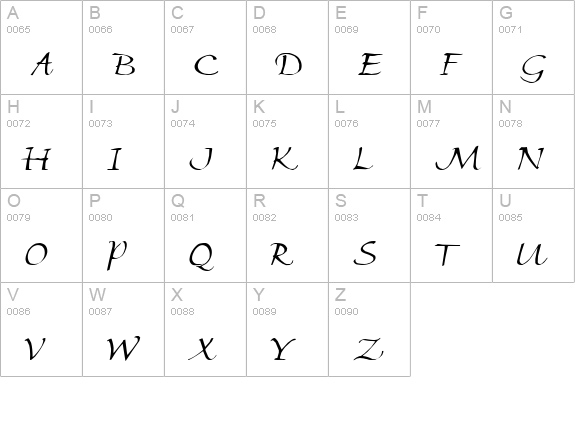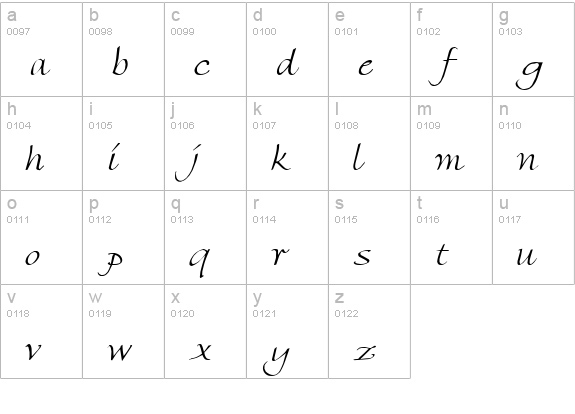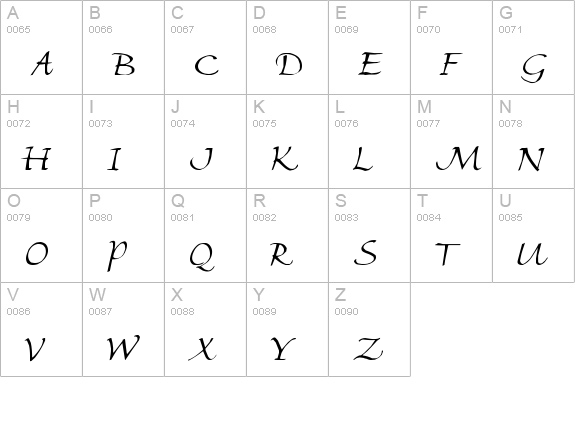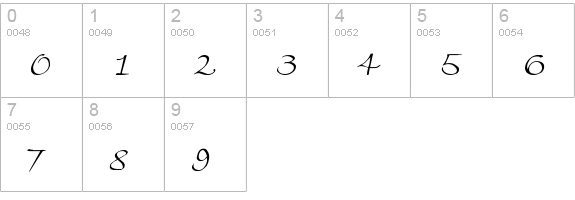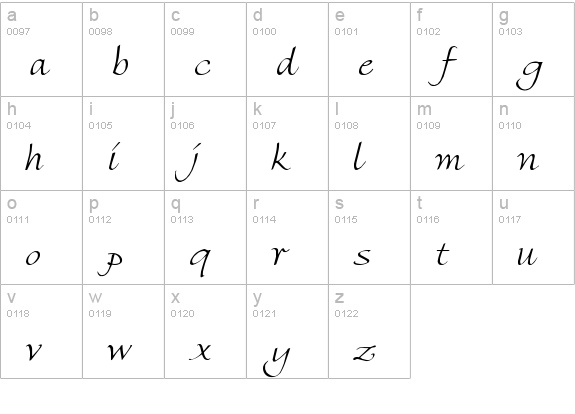
Mikado Font Details
Mikado font is a modern and stylish typeface that exudes elegance and sophistication. With its clean lines and sleek design, Mikado font is perfect for a wide range of design projects, from branding to editorial design. This versatile font is sure to make your text stand out and leave a lasting impression on your audience. Best of all, Mikado font is completely free to download at FontsMarket.com. Whether you're a seasoned designer looking to add a fresh new font to your collection or a beginner looking to experiment with typography, Mikado font is the perfect choice. Don't miss out on this incredible opportunity to enhance your designs with this beautiful and unique font. Download Mikado font today and take your design projects to the next level.